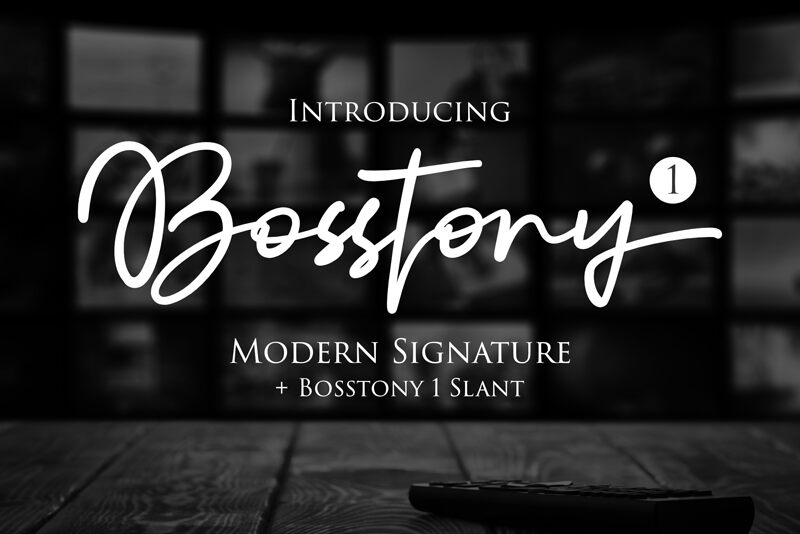
Bosstony 1
Bosstony font has a casual touch reflected through its smooth, mild curve shapes. Developed by DumadiStyle as a light handwritten-style typeface, it reveals artistic flair and modern elegance when used. Much like handwriting or calligraphy, each letter feels personalized yet fits smoothly with the rest of the font characters.
Use Bosstony for free in wedding card designs, invitations to bigger festive events, sale posters featuring the newest apparel collections and campaigns to promote nonspecific products of all kinds. Other useful applications include creative photography titles, blogs and vlogs in both image intro sections and video introductory frames shown at the start of each video post.